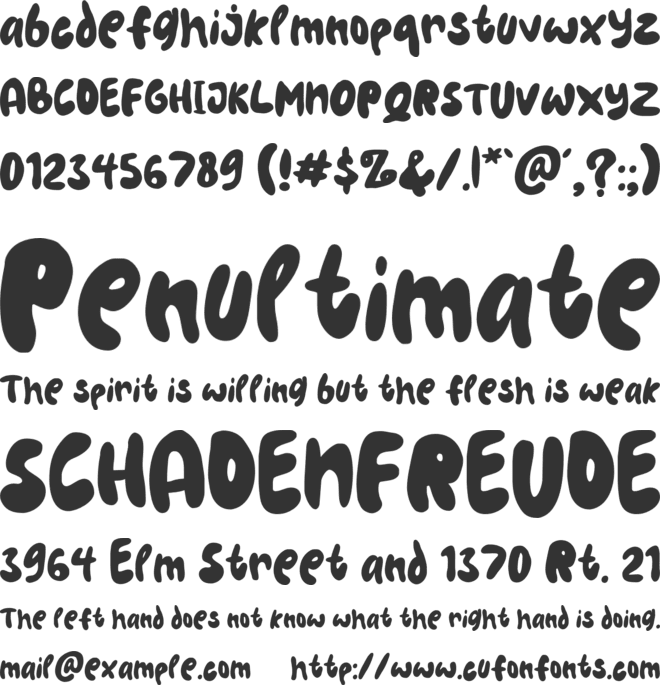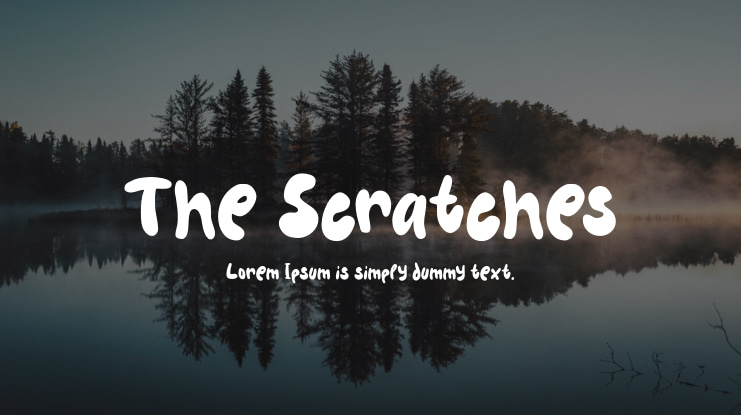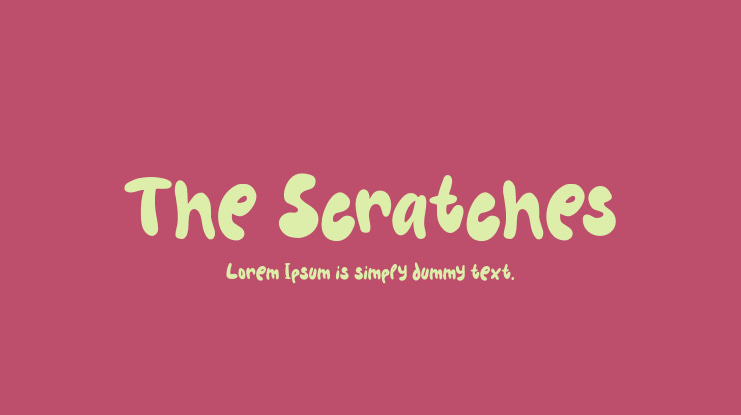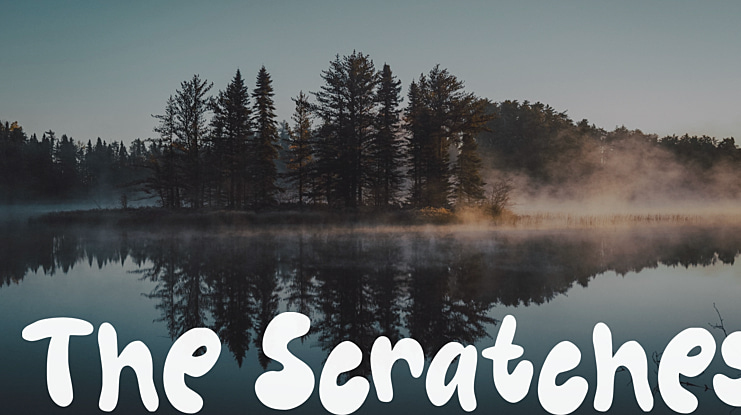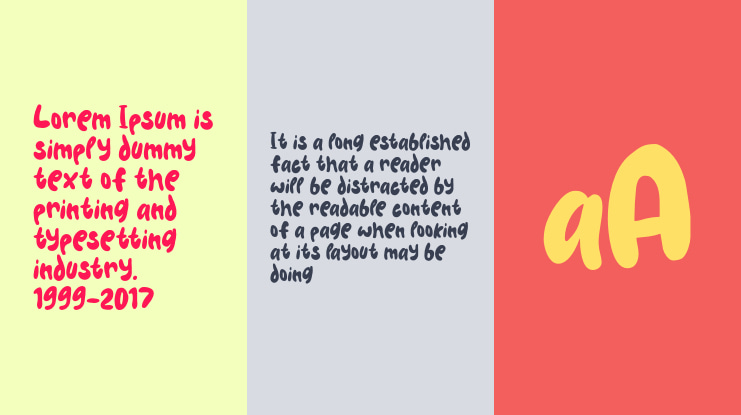
The Scratches Font
The Scratches font is a simple, modern, playful, and natural hand-drawn display font. This font is perfect for creating logos, watermarks, branding, wedding invitation, quote, tagline, or anything else. Let’s make something beautiful project with this.